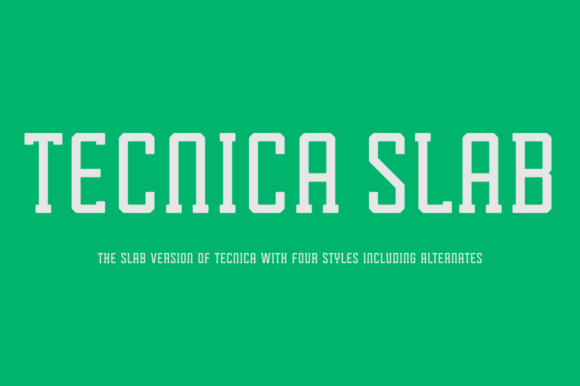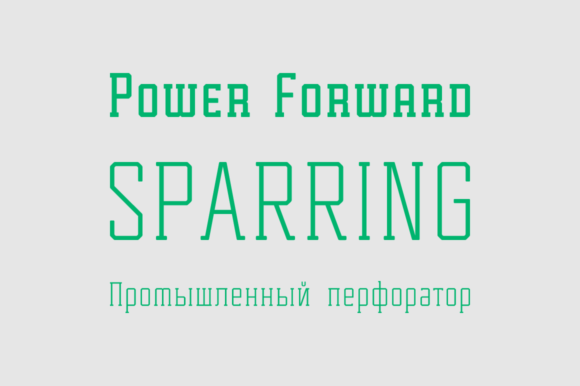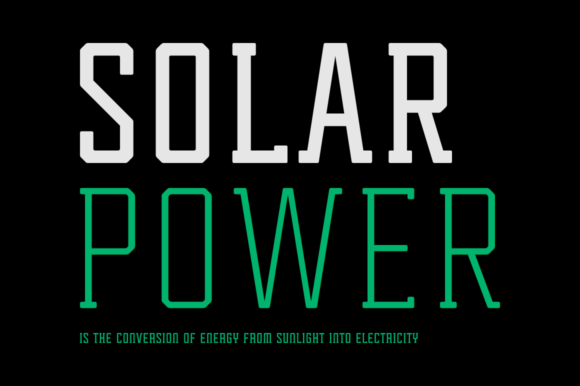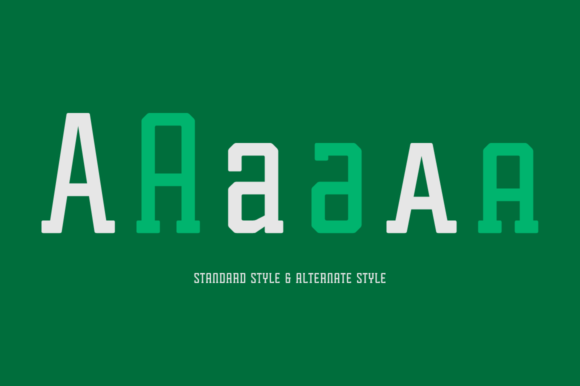
Tecnica Slab Family
Slab Serif Fonts: Bold and Impactful Typography
Slab serif fonts are characterized by their distinctive thick, rectangular serifs. This font family offers a wide range of options suitable for various design needs, from modern to vintage styles.
Key Features of Slab Serif Fonts
• Bold Appearance: Slab serif fonts provide a strong and eye-catching look.
• Versatile Use: Ideal for headlines, logos, and short text blocks.
• Readability: Thick serifs enhance legibility, especially in larger point sizes.
Popular Slab Serif Fonts
Tecnica Slab Family
The Tecnica Slab Family offers a modern and technological look, perfect for digital and tech-focused projects.
Klub Katz
Klub Katz stands out as a slab serif font that adds a fun and relaxed atmosphere. It’s ideal for casual projects.
College Dropout Font
For academic or corporate projects, the College Dropout Font is an excellent choice. It offers a classic and reliable look.
Versatility in Design
Slab serif fonts come in various styles, from vintage-inspired to modern interpretations:
Why Choose Slab Serif Fonts?
Slab serif fonts add power and character to your designs. Here are reasons to prefer this font style:
• Ideal for achieving a strong and authoritative look
• Provides excellent readability on large surfaces and digital screens
• Adapts to various design styles from vintage to modern
Enhancing Your Design Process
By using slab serif fonts, you can add depth and character to your designs. These fonts yield effective results in many areas, from logo design to poster design. Consider fonts like Brassie Family or Galvin Family Pack for consistent typography across your projects.
Slab serif fonts are an excellent tool for adding strength and character to your designs. From the vintage-inspired Osgood Slab to the modern AZ Storm, there’s a slab serif font for every design need.